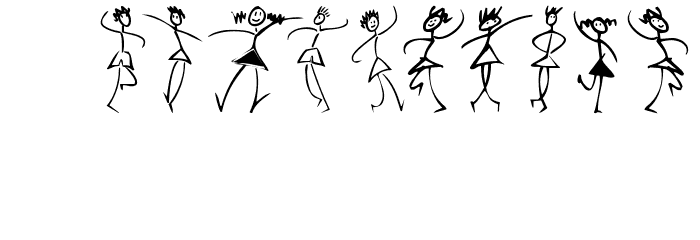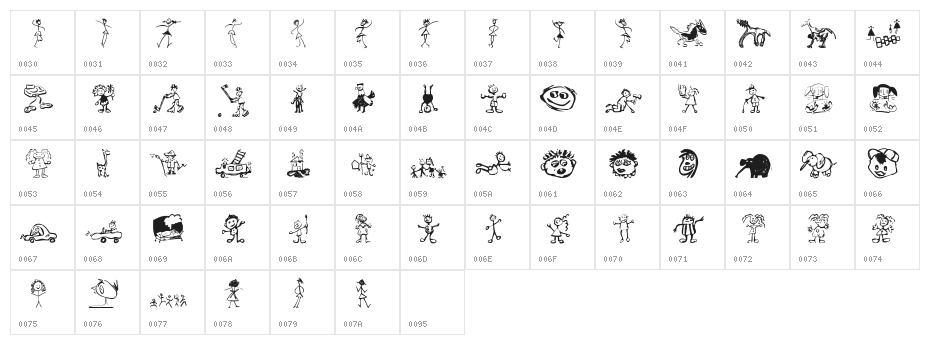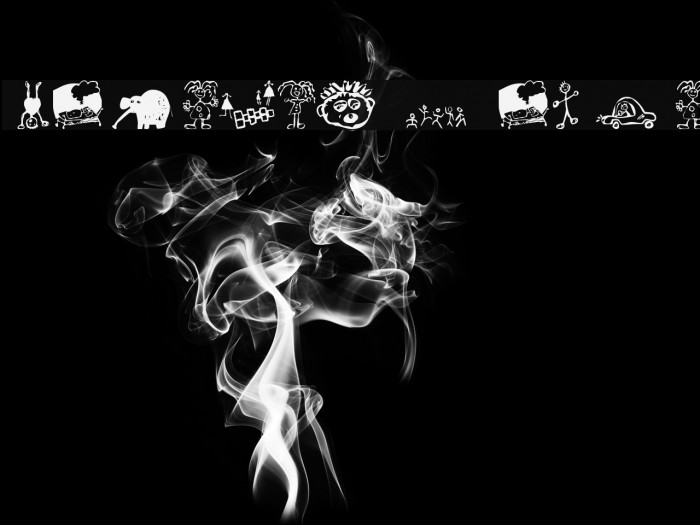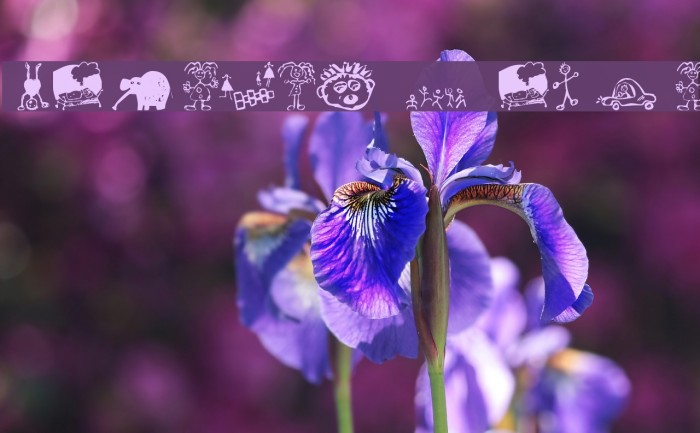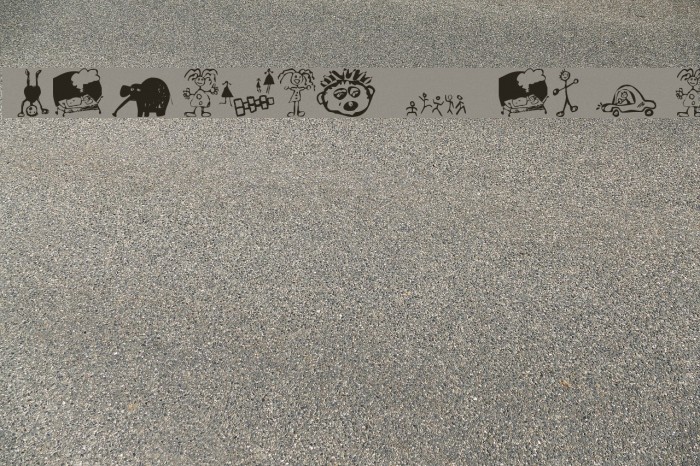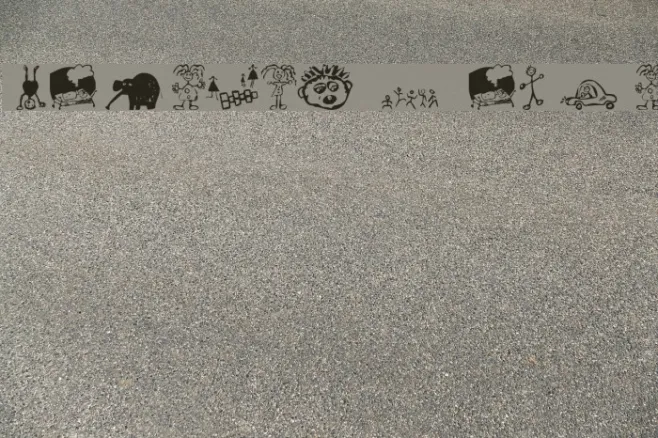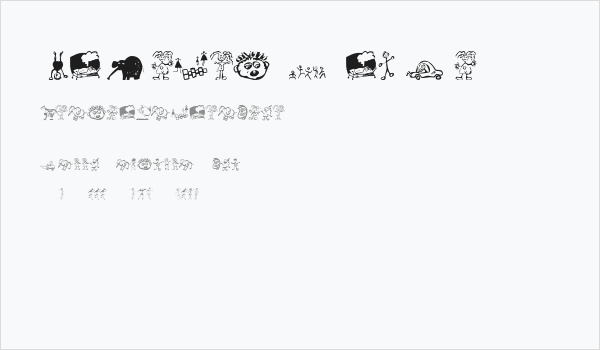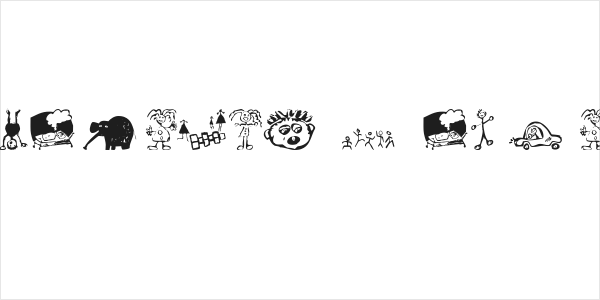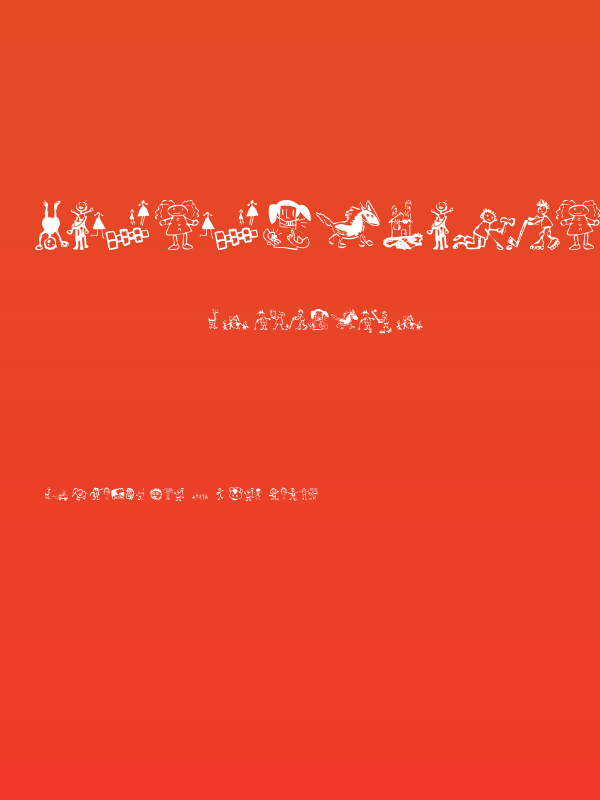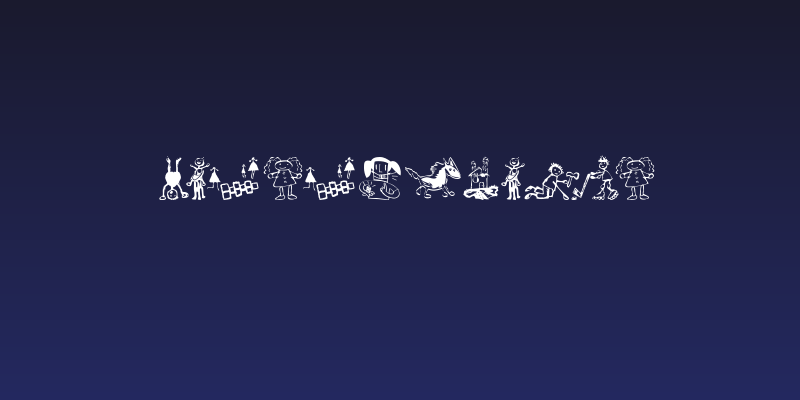
KidsDrawings Font
KidsDrawings Description
A playful, hand-drawn style font featuring whimsical stick figures, doodles, and childlike illustrations instead of traditional letterforms, evoking the spontaneous and imaginative quality of children's drawings.
| Overall Style | Playful, Whimsical, Childlike, Decorative |
| Use Case | Headlines, Posters, Invitations, Branding for kidsΓ’β¬β’ products |
| Proposed Projects | Children's books, educational materials, birthday invitations, playful branding, art projects. |